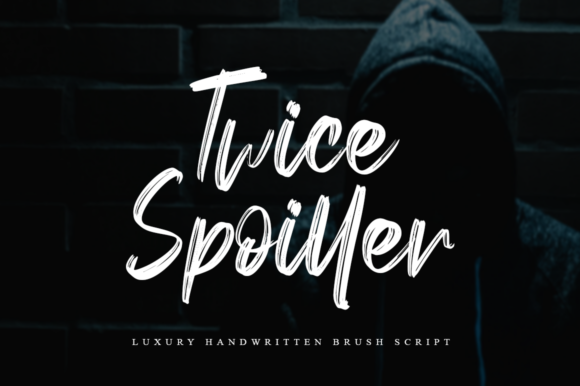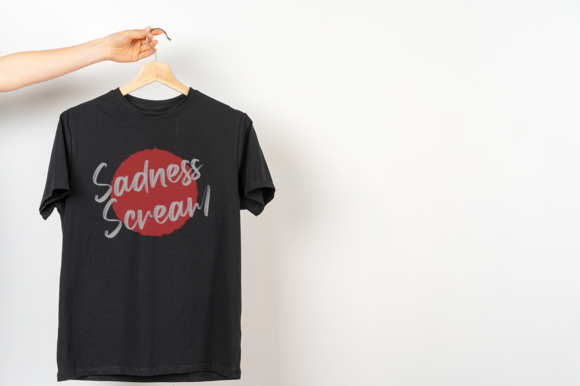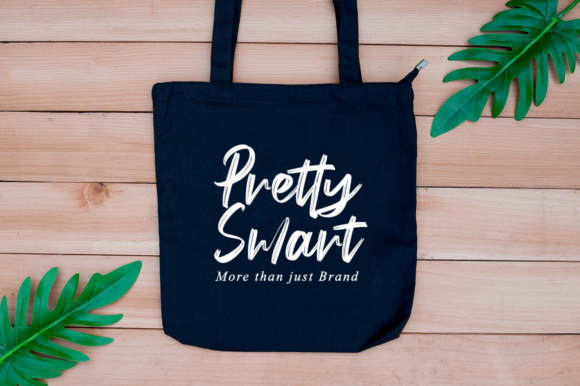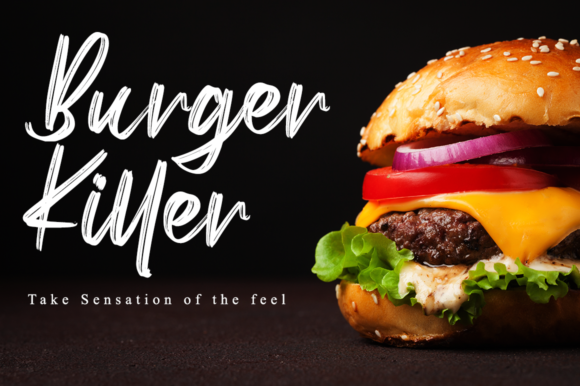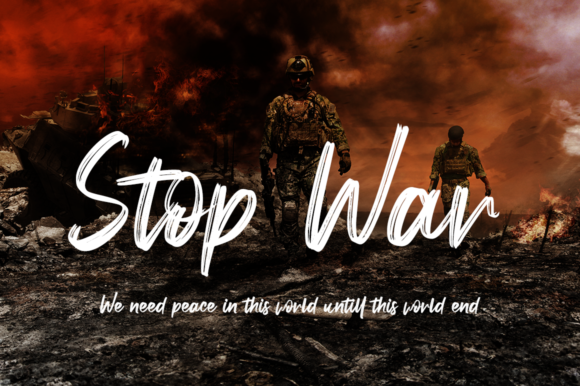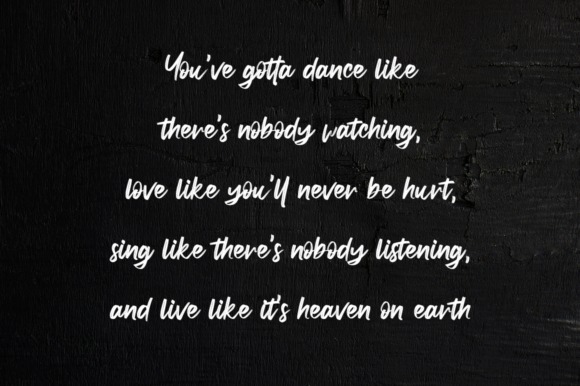
Twice Spoiller Font
About Twice Spoiller Font
Twice Spoiller is an exquisite handwritten font, masterfully designed to become a true favorite. It maintains its classy calligraphic influences while feeling contemporary and fresh. Fall in love with it and bring your projects to the highest levels!